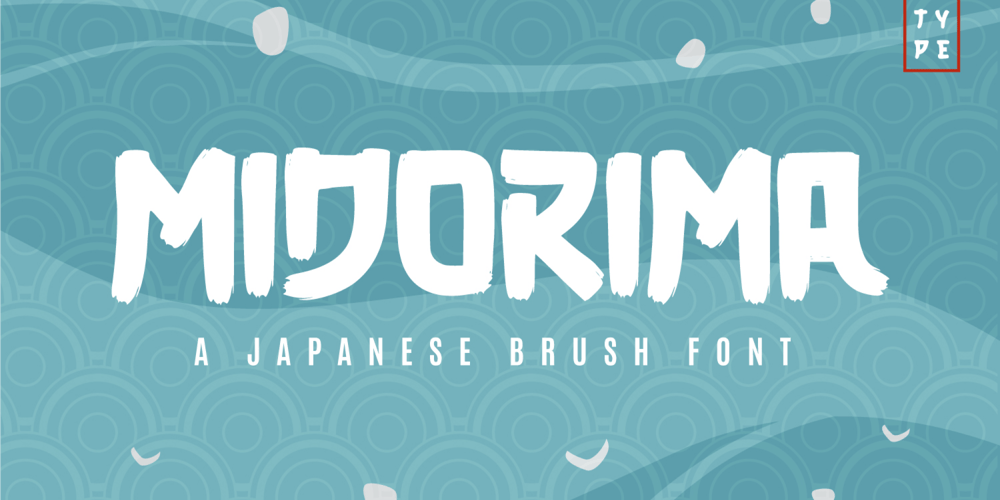
Midorima Font Family was designed by Yudi Setiawan and published by Wyarecreatype. Midorima contains 1 styles and family package options. Midorima is a japanese style font that we made with excellent taste. We combine ethnic and cultural elements in each of the glyphs. This Midorima font is suitable for those of you who like japanese culture, besides this font is also suitable for those of you who have a japanese restaurant, japanese clothing brand, japanese arts, and business purpose related with japanese culture.Midorima is perfect for your brand!